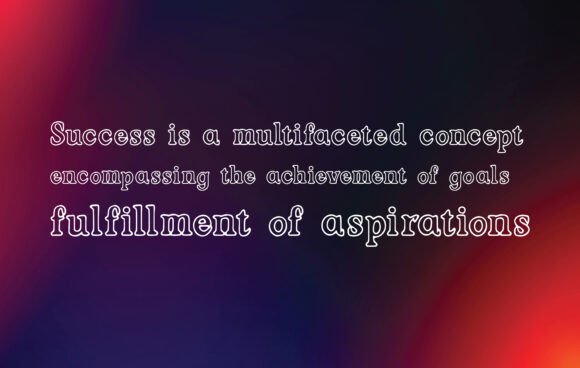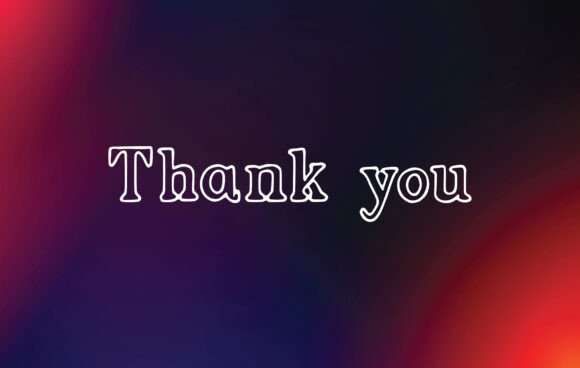
Discover the Versatility of Arwel Font: Elevate Your Designs to New Heights
Are you tired of using the same old fonts in your designs? Look no further than the Arwel Font, a game-changing typeface that is sure to become a true favorite in your creative arsenal. With its exceptional legibility and stunning visual appeal, this font is perfect for a wide range of design applications, from magazine headlines to social media graphics, and everything in between.
A Font Designed for Creatives
The Arwel Font is designed to help you take your creative ideas to the highest level. Its unique design makes it an excellent choice for both title and body text, ensuring that your message is conveyed with clarity and style. Whether you’re working on a branding project, creating eye-catching t-shirt designs, or crafting beautiful wedding invitations, this font is sure to impress.
One of the standout features of the Arwel Font is its incredible versatility. Its clean lines, elegant curves, and exceptional legibility make it perfect for a wide range of design applications, including:
• Magazine headlines: Make a bold statement with eye-catching headlines that grab attention and draw readers in.
• T-shirts and apparel: Create stunning designs that look great on a variety of products, from t-shirts to tote bags.
• Social media graphics: Elevate your social media presence with professional-looking graphics that showcase your brand’s personality.
• Branding and advertising: Use the Arwel Font to create cohesive brand identities that reflect your values and style.
• Wedding invitations and cards: Add a touch of elegance and sophistication to your wedding stationery and cards.
Why Choose the Arwel Font?
So, what sets the Arwel Font apart from other typefaces? Here are just a few reasons why designers and crafters love this font:
• Exceptional legibility: The Arwel Font is designed to be easy to read, making it perfect for both title and body text.
• Unique design: The font’s elegant curves and clean lines make it stand out from more traditional typefaces.
• Versatility: Use the Arwel Font for a wide range of design applications, from print to digital.
• Professional look: The font’s sophisticated design makes it perfect for professional-looking designs that impress.
Tips for Using the Arwel Font
To get the most out of the Arwel Font, here are a few tips to keep in mind:
• Experiment with different sizes: The Arwel Font looks great in a variety of sizes, from large headlines to smaller body text.
• Play with colors: Try pairing the Arwel Font with different colors to create stunning visual effects.
• Mix and match: Combine the Arwel Font with other typefaces to create unique and eye-catching designs.
• Pay attention to spacing: Make sure to leave enough space between lines and around the font to create a clean and elegant look.
In conclusion, the Arwel Font is a game-changing typeface that is sure to become a favorite in your creative arsenal. With its exceptional legibility, unique design, and versatility, this font is perfect for a wide range of design applications. Whether you’re a designer, crafter, or DIY enthusiast, the Arwel Font is a must-have for anyone looking to elevate their designs to new heights.